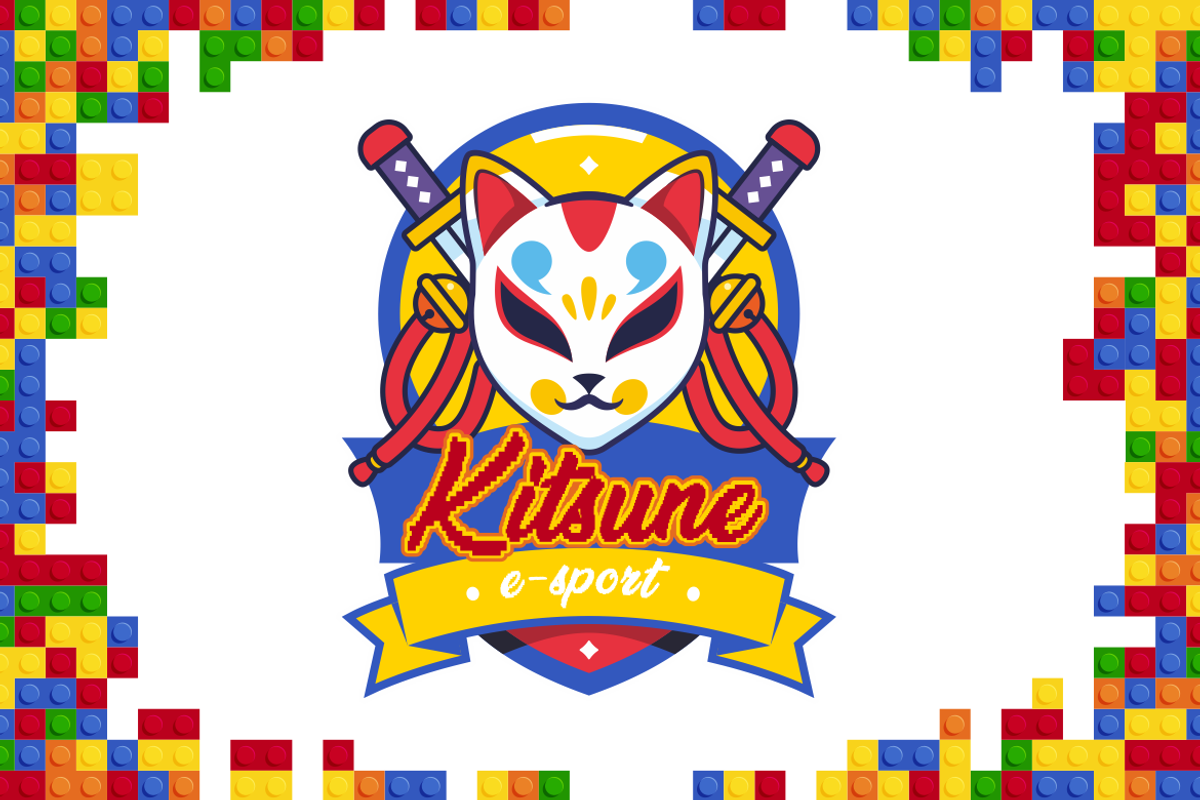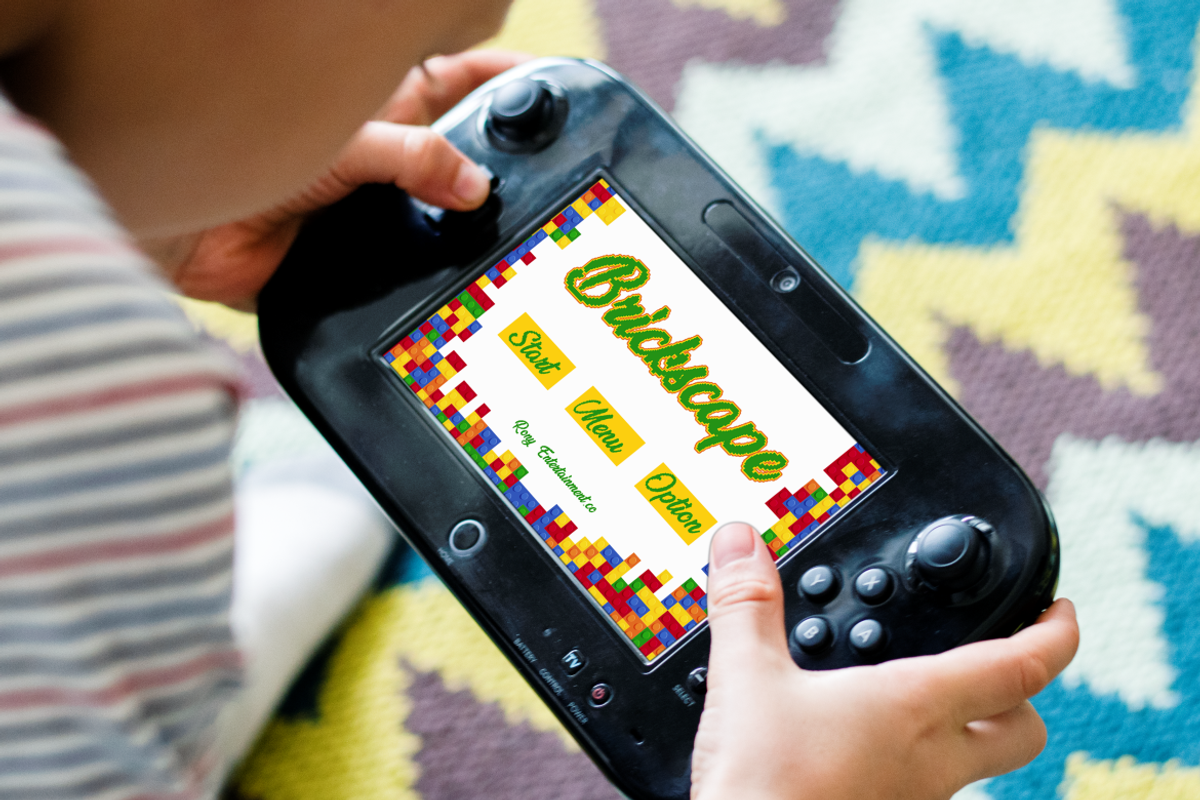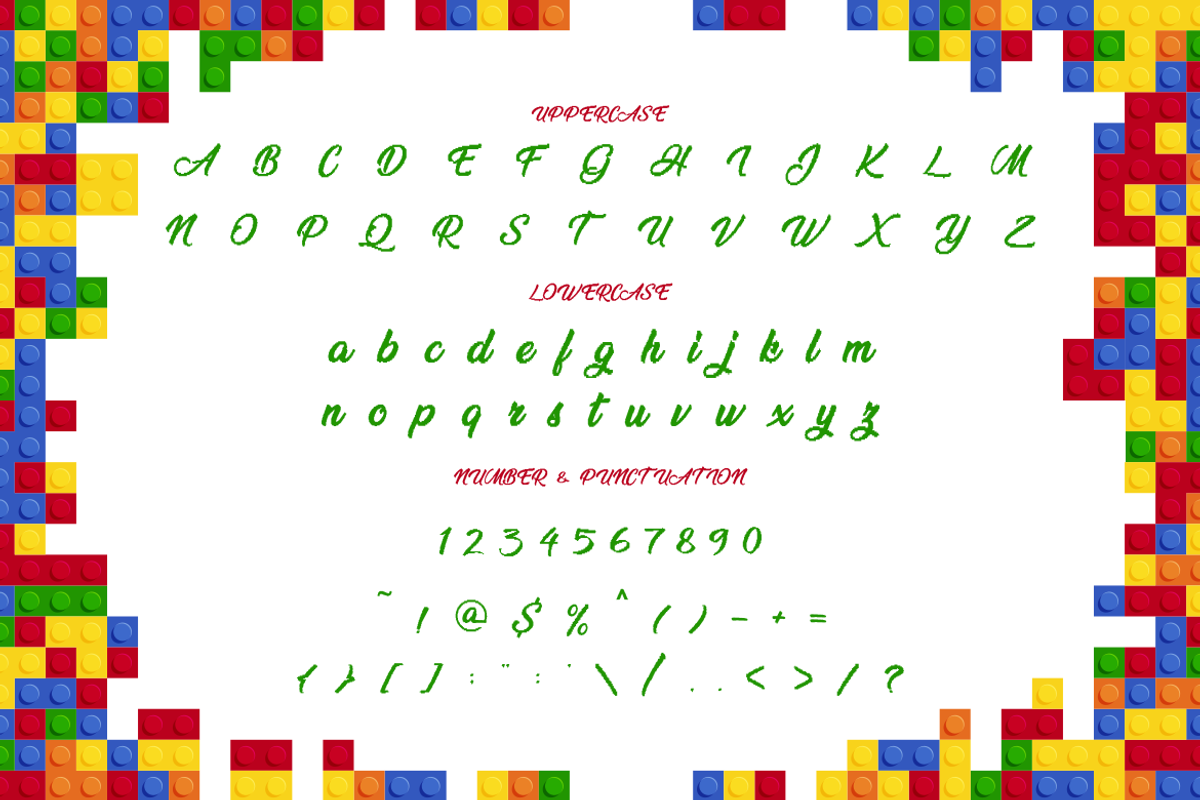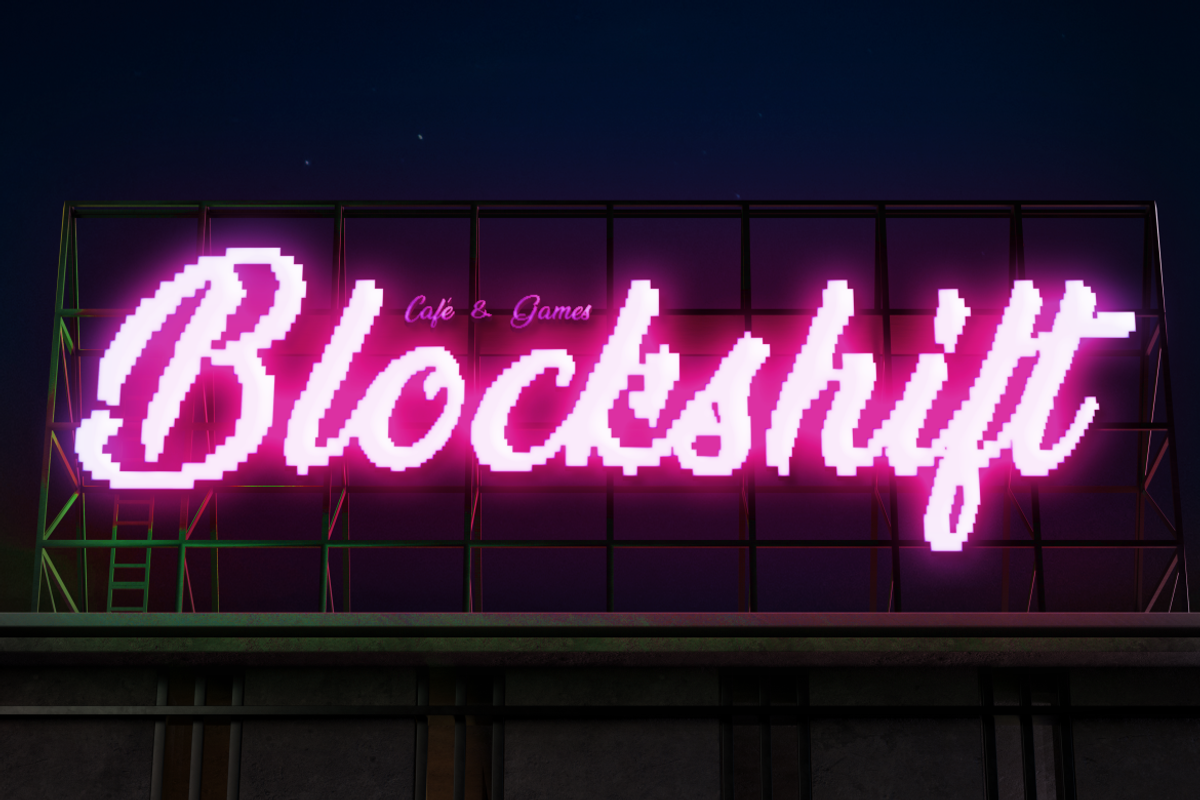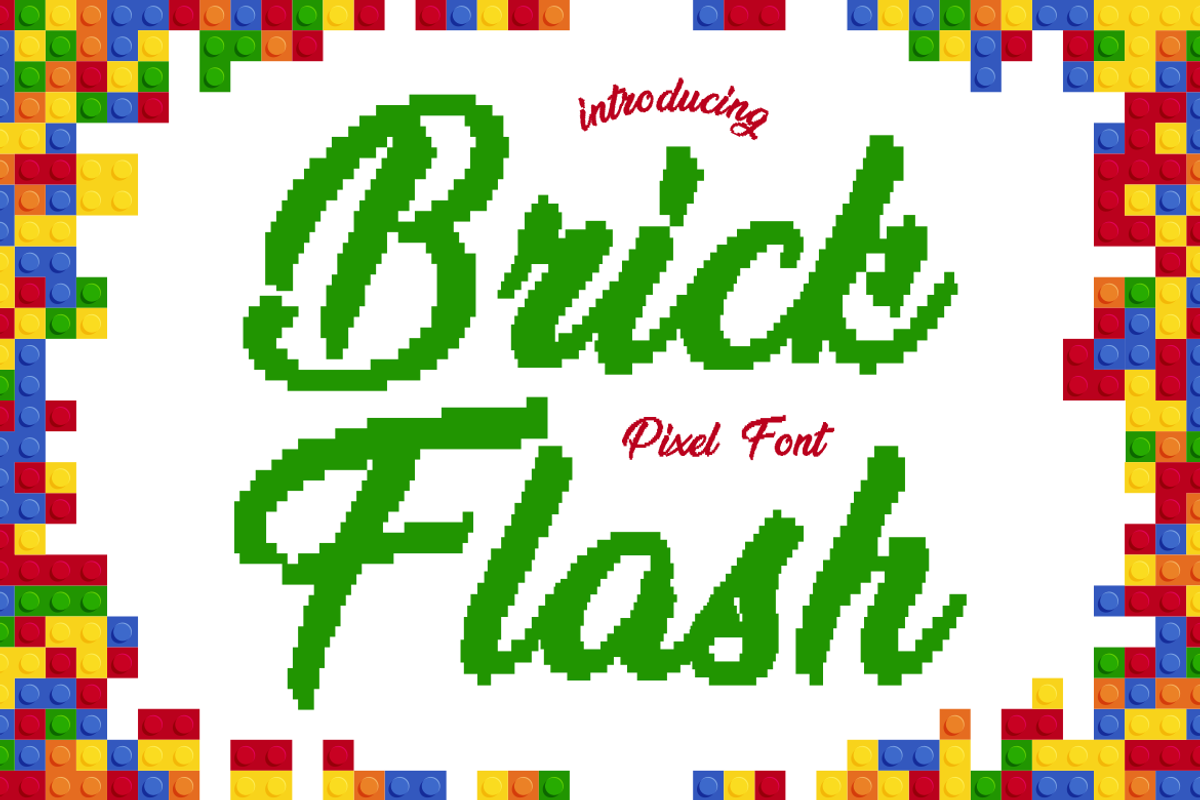
Brick Flash Pixel Font
Brick Flash Pixel Font brings an electrifying fusion of retro script elegance and nostalgic pixel charm. Inspired by the aesthetic of classic arcade gaming and toy building blocks, each character is designed with crisp square edges that replicate pixel art but styled into a flowing cursive form. The vibrant outlines and rhythmic strokes give the script a handcrafted, energetic appeal, making it perfect for high impact visuals. From the uppercase elegance to the playful lowercase rhythm, this font maintains perfect legibility while exuding character and flair.
Designed for digital creators and modern crafters, Brick Flash Pixel Font is the perfect choice for game UI titles, toy branding, retro posters, esports logos, and fun merchandise. Its unique script style adds an emotional layer to any design, while the pixel structure ensures it retains a digital, nostalgic soul. Whether you're designing a kid friendly invitation or a neon signage mockup, Brick Flash delivers a pixel perfect result every time. Make your projects pop with a retro script like no other!